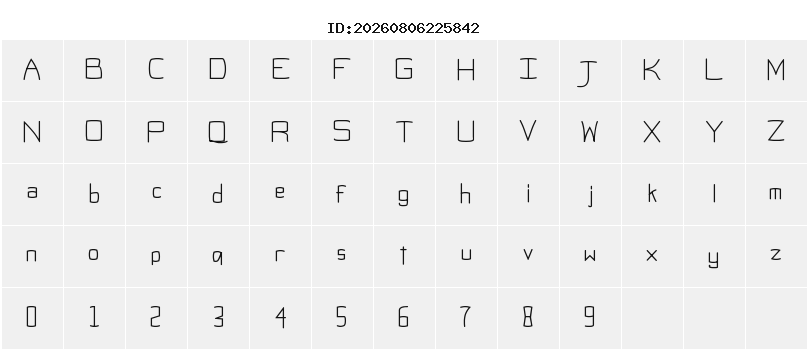
• Font Name: Obti Sans Neue
• Designer: Lewis Bauer
• Description: Obti Sans Neue designed by Lewis Bauer.
About Obti Sans Neue.ttf
Obti Sans Neue.ttf is a modern, elegant sans-serif font designed for ultimate readability and visual harmony. Perfect for branding, headlines, web design, and print materials.